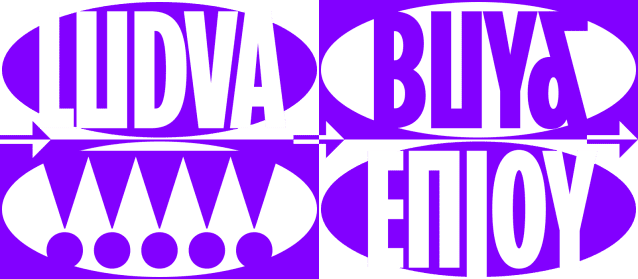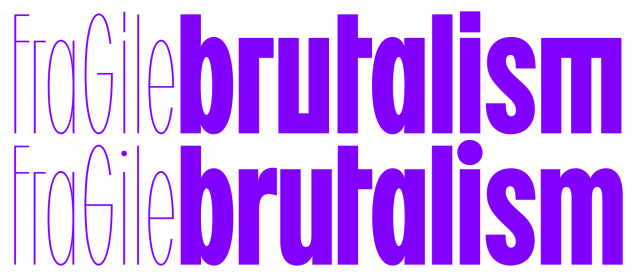
BC Ludva Font Family
BC Ludva Font Family – The inspiration to create the Ludva type family comes from Louis Oppenheim’s Flamingo
– a compressed, thin, vertical, elongated type from the late 1920s. Ludva takes over the basic proportions of its distant ancestor, but instead, it follows the ideas and spirit of the Bauhaus and reduces the complex world around us to banal geometric shapes. Its simple stems are balanced precisely with well-considered proportions. The type is so trivial as to be surprising. On second glance, it proves to be so well-constructed that it will find a whole range of uses.